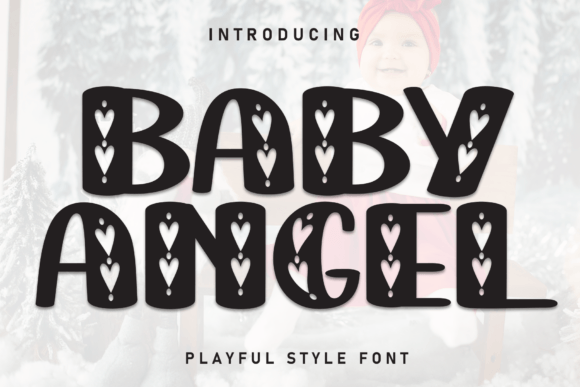
The Delightful Allure of Baby Angel Font
That’s exactly what the Baby Angel Font embodies – a warm, sweet, and whimsical handwritten display font that brings a touch of playfulness to your designs. Perfect for crafting whimsical wedding invitations, heartfelt cards, or any project that requires an extra dose of love, this font is a treasure trove for designers. With its unique charm, it establishes an unforgettable connection with the end recipient, making it a valuable addition to any design arsenal.
Baby Angel Font Key Features
- Font Family: Baby Angel Font is a unique, handwritten font designed for various applications.
- Character Set: The font includes a wide range of characters, including uppercase and lowercase letters, numbers, and special symbols.
- Unique Characteristics: The font features a soft, delicate, and whimsical style, making it ideal for designs that require a touch of innocence and charm.
Baby Angel Font Review
I recently had the chance to work with the Baby Angel Font, and I must say it’s a unique and interesting addition to any design project.
- Cute and playful aesthetic: The font is perfect for projects that require a lighthearted and whimsical feel.
- Highly customizable: The font offers a wide range of customization options, making it easy to adjust to fit your design needs.
- Wide language support: The font is compatible with multiple languages, making it a great choice for international projects.
- Not ideal for formal projects: The font’s playful nature may not be suitable for formal or professional projects.
- Limited script support: While the font is highly customizable, script support is limited, which may be a concern for designers who need to include scripts in their projects.
The Baby Angel Font is a fun and versatile addition to any designer’s toolkit. While it may not be suitable for every project, it’s a great choice for those that require a playful and lighthearted feel. With its high level of customization and wide language support, it’s definitely worth considering for your next design project.
The Baby Angel Font is perfect for:
- Creating cute and playful designs for children’s products.
- Adding a touch of whimsy to wedding invitations or baby shower decorations.
- Designing nursery decor or baby-themed graphics.